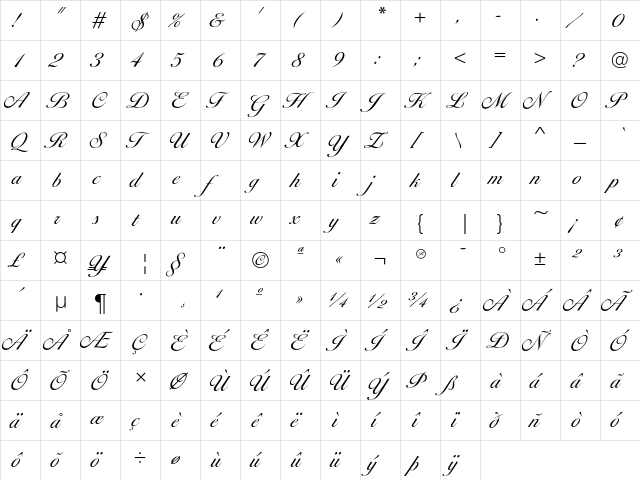
BallantinesScriptEF Light Font Preview
Design Context for BallantinesScriptEF Typeface
BallantinesScriptEF flows with the natural rhythm of handwritten lettering, making it ideal for designs that call for warmth and personal expression. The delicate stroke weight brings airiness and refinement to layouts.
Font Pairing: Combine BallantinesScriptEF with a simple geometric sans for maximum contrast — the tension between flowing curves and clean structure is a classic typographic pairing.
Pro Tip: Pair BallantinesScriptEF with a clean sans-serif for supporting text. The contrast between fluid script and geometric structure creates an elegant typographic hierarchy.